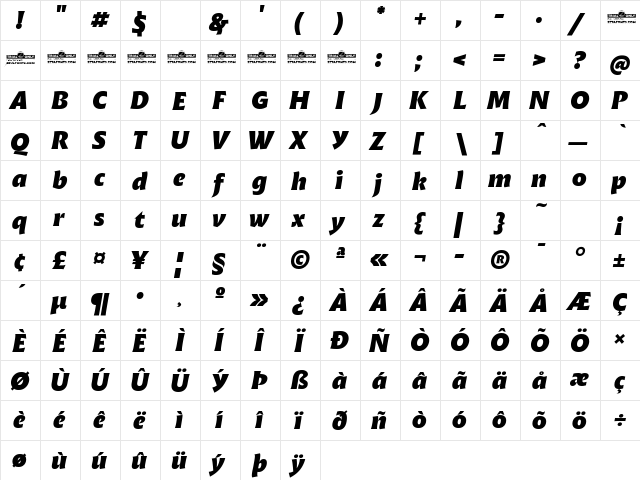
Malik Trial Extrabold Italic
| Foundry | Zetafonts |
| Designer | Andrea Tartarelli |
Design Context for Malik Trial Typeface
Malik Trial is a composed and adaptable typeface that performs quietly and consistently across a wide range of design contexts. The slanted form adds forward momentum and visual energy. The heavy weight commands attention and anchors typographic hierarchies.